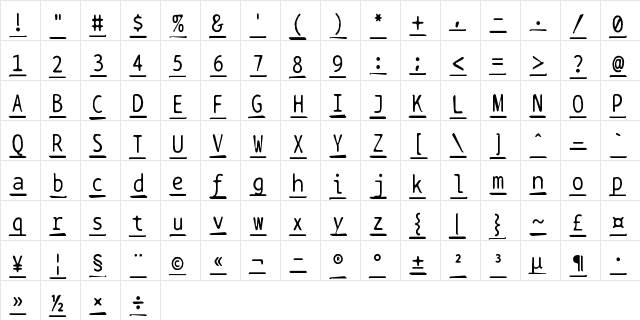
BPtypewriteDamagedUnderscored Regular
| Foundry | George Triantafyllakos |
| Designer | George Triantafyllakos |
Design Context for BPtypewriteDamagedUnderscored Typeface
BPtypewriteDamagedUnderscored is a composed and adaptable typeface that performs quietly and consistently across a wide range of design contexts.